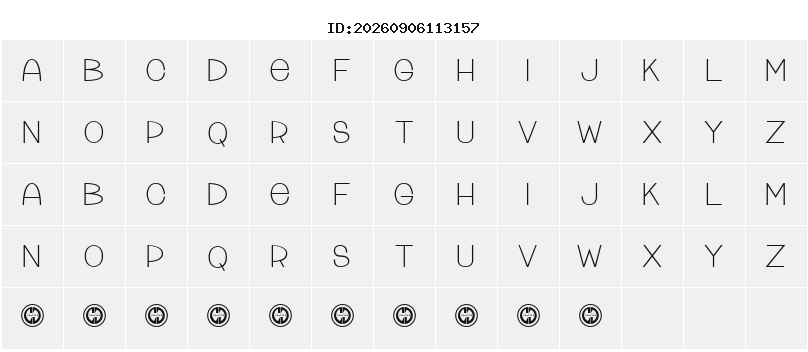
Tattle & Tales Preview
• Font Name: Tattle & Tales
• Designer: Chris Vile
• Manufacturer: Font Monger
• Description: Tattle and Tales Regular is a font by Font Monger, designed by Chris Vile in 2016.
Tattle & Tales.ttf is a modern, elegant sans-serif font designed for ultimate readability and visual harmony. Perfect for branding, headlines, web design, and print materials.